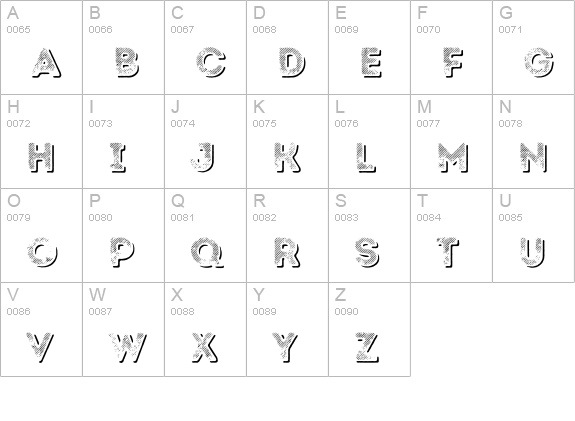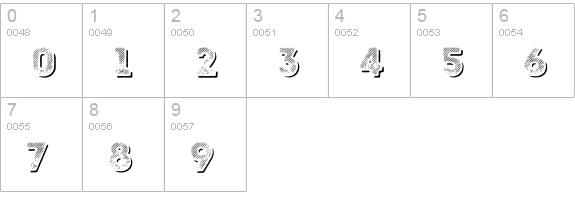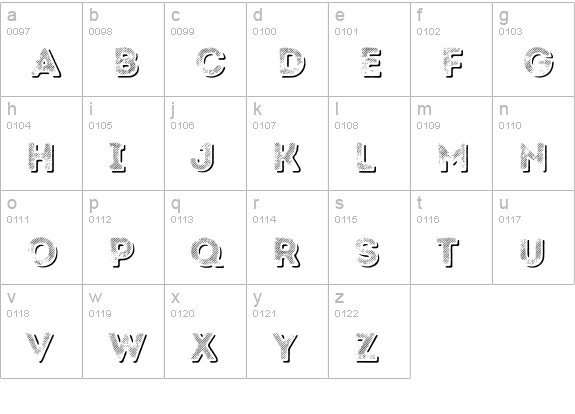
Intro Rust L Fill Shade Font Details
Intro Rust L Fill Shade font is a striking and bold typeface that exudes a sense of modernity and creativity. With its unique design and intricate details, this font is perfect for making a statement in various design projects. The filled shade style adds depth and dimension to the text, making it stand out on any platform. What's even better is that Intro Rust L Fill Shade font is available for free download at FontsMarket.com. This means you can easily access and use this eye-catching font in your designs without any cost. Whether you're working on branding, advertising, or any other creative project, Intro Rust L Fill Shade font is sure to make a lasting impression. Don't miss out on this fantastic opportunity to enhance your designs with this stunning typeface.